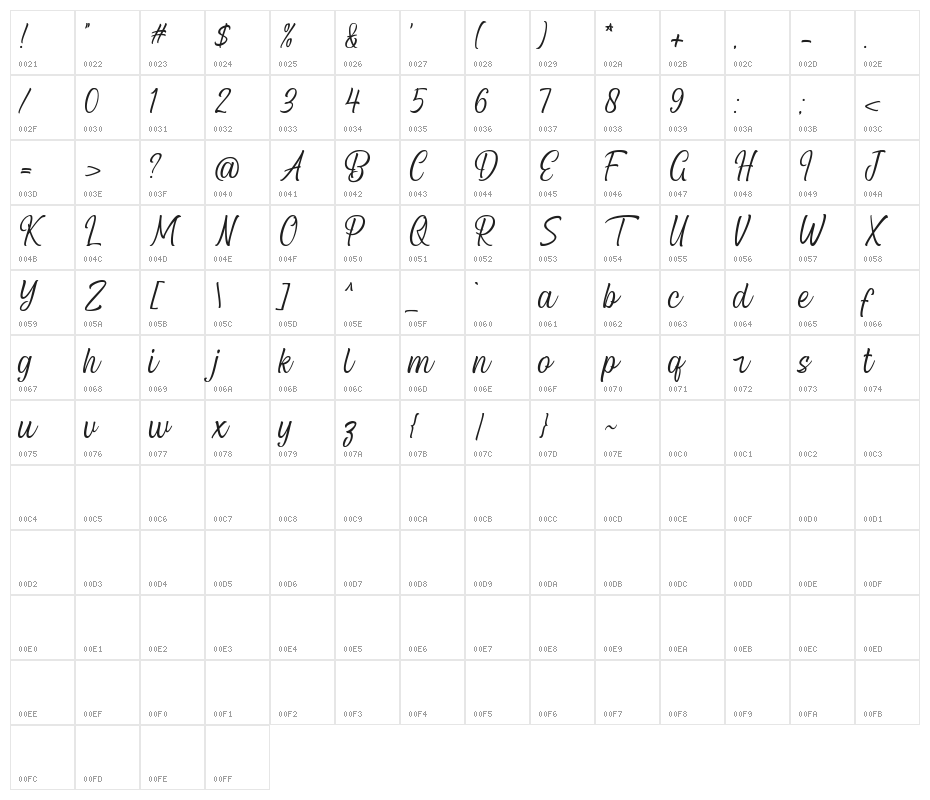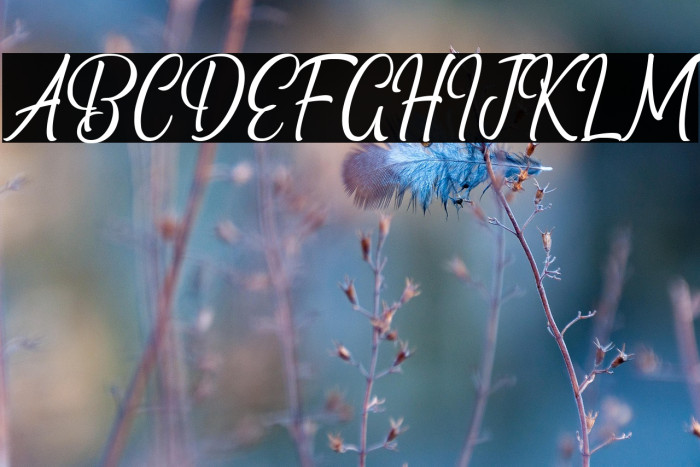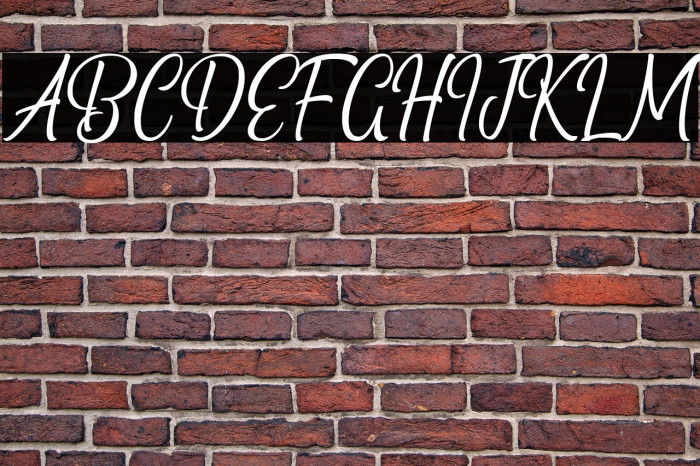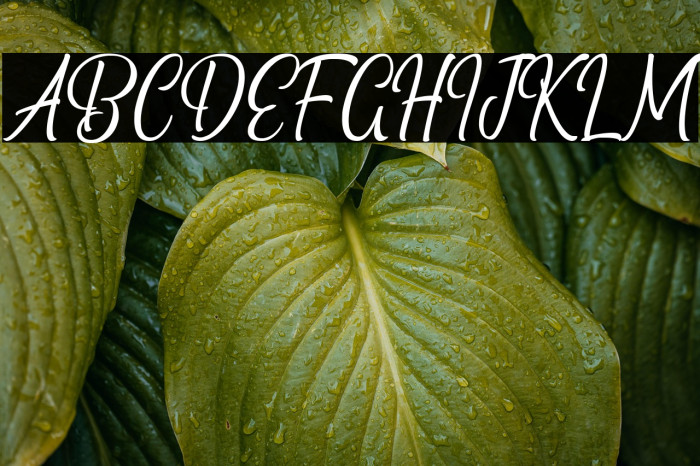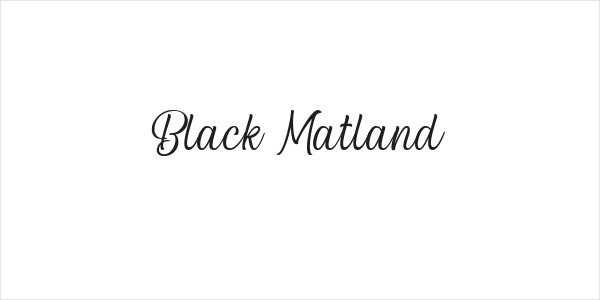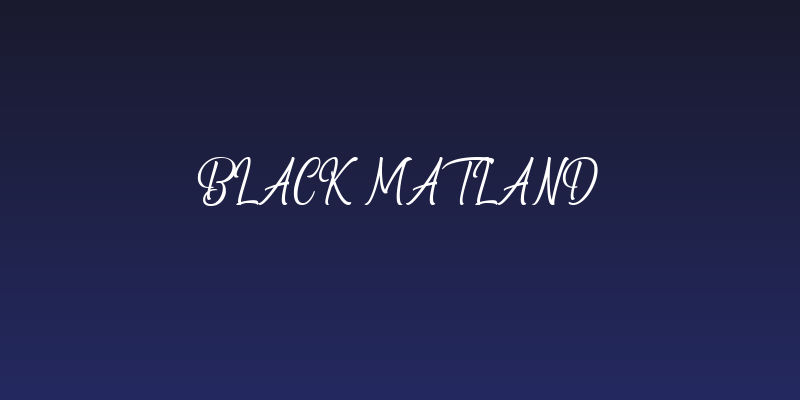
Black Matland Font
Black Matland Description
This font features a flowing, cursive style that exudes elegance and sophistication. The letters are connected with smooth, sweeping strokes, giving it a handwritten appearance. The uppercase letters are slightly more ornate, with flourishes that add a touch of flair. The lowercase letters maintain a consistent flow, enhancing readability while retaining a stylish look. The numerals are clear and distinct, matching the overall cursive theme. Special characters are seamlessly integrated, maintaining the font's cohesive design. This font is perfect for projects that require a personal, elegant touch.
| Proposed Projects | Ideal for wedding invitations, greeting cards, personal branding, and elegant packaging. |